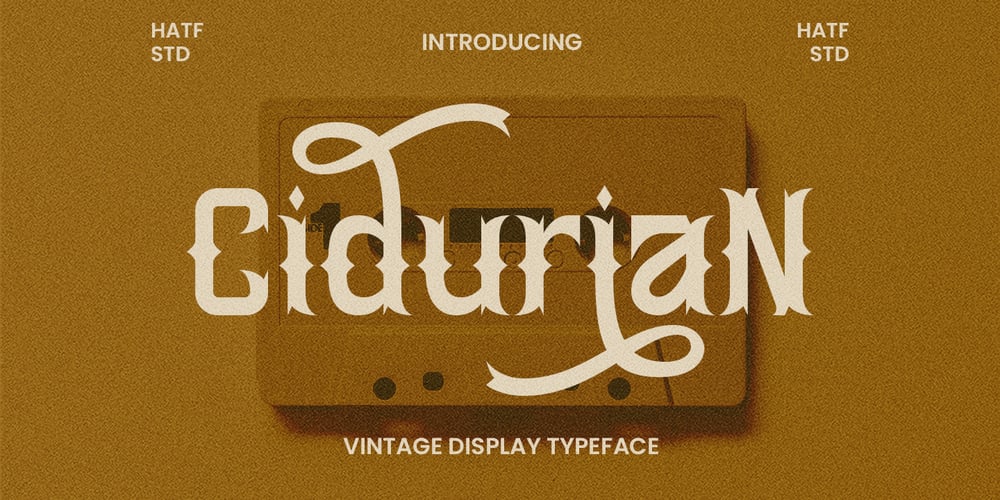
Cidurian Font Family was designed by Asep Rendi and published by Hatftype. Cidurian contains 1 styles and family package options. Cidurian, a vintage typeface that combines classic elegance with a subtle modern touch. With a design inspired by eras gone by, Cidurian exudes an alluring charm and a strong character. Each letter is carved with meticulous detail, creating a sense of calm and elegance unrivaled. With its elegant and spacious style, this font is suitable for projects that require a classic retro touch but still provide a fresh and contemporary feel. Cidurian is the perfect choice for creating timeless and stylish designs.